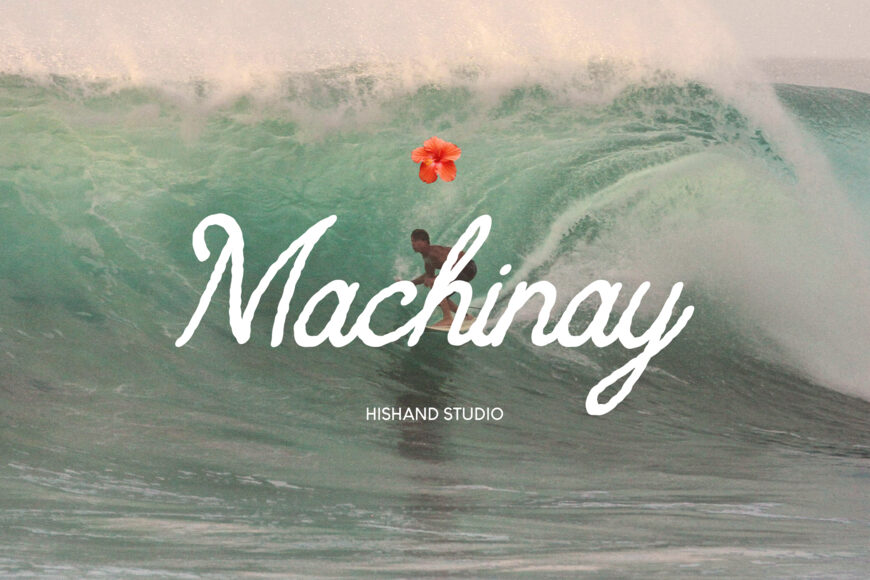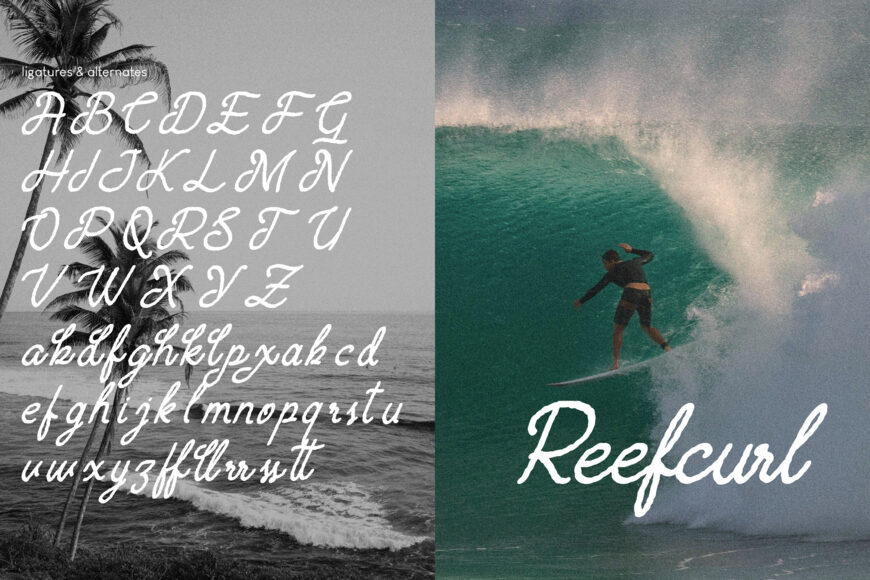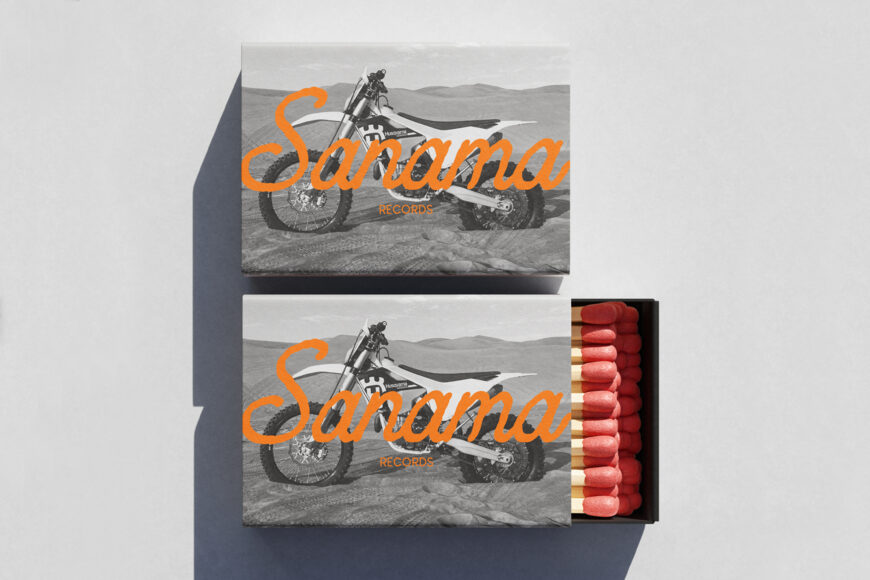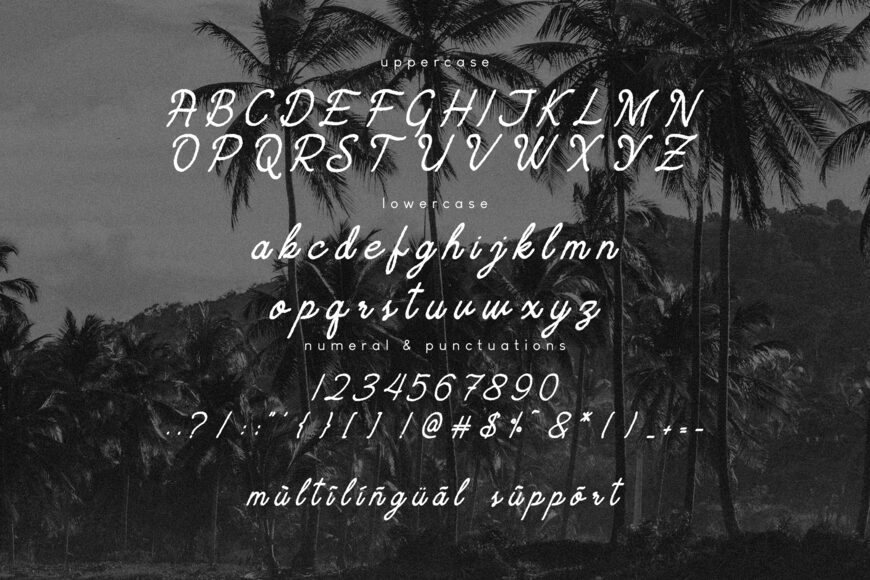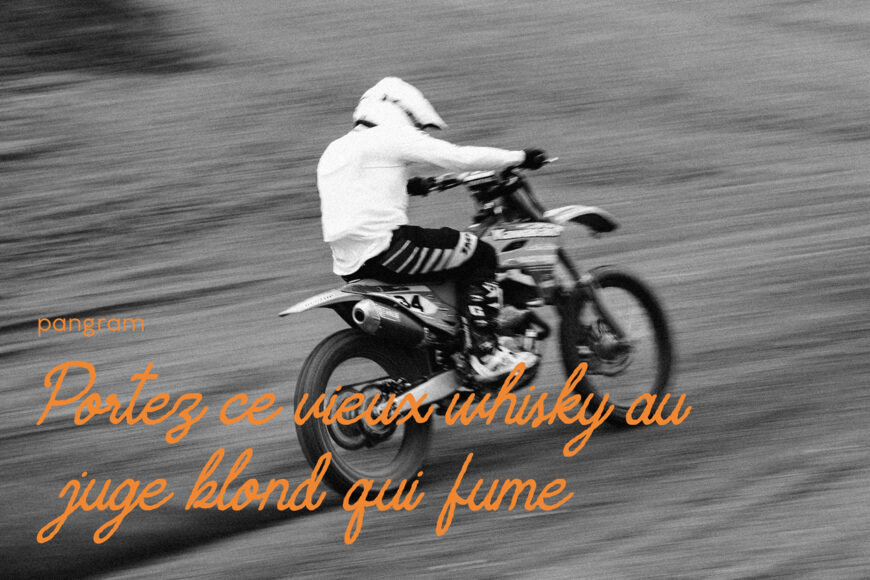
Machinay Font
Machinay is a natural script typeface built for a relaxed, tropical mood. Its strokes flow the way handwriting does when there’s no rush, slightly loose, a little uneven, with soft curves and gentle connections between letters.
Instead of the polished uniformity of a digital script, Machinay Script Font keeps small imperfections that make it feel handwritten and human, the kind of lettering you’d expect from someone writing slowly, without a ruler or a deadline.